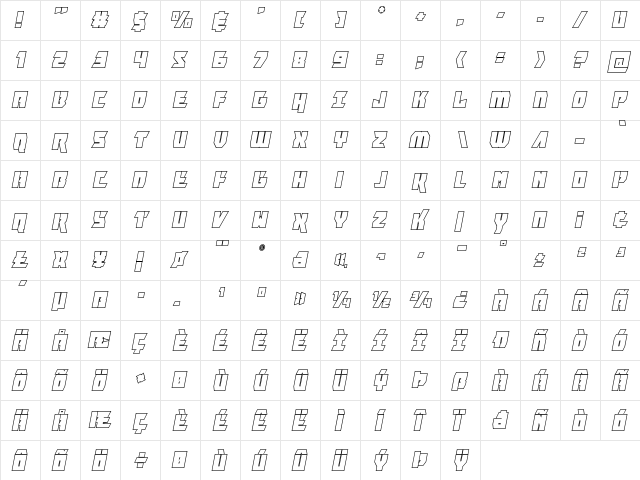
Furiosa Outline Italic Outline Italic
Furiosa Outline Italic is built around its visual character rather than neutral utility — its distinctive forms are designed to make an impression at display sizes. Its italic angle brings a sense of urgency and motion to the letterforms.